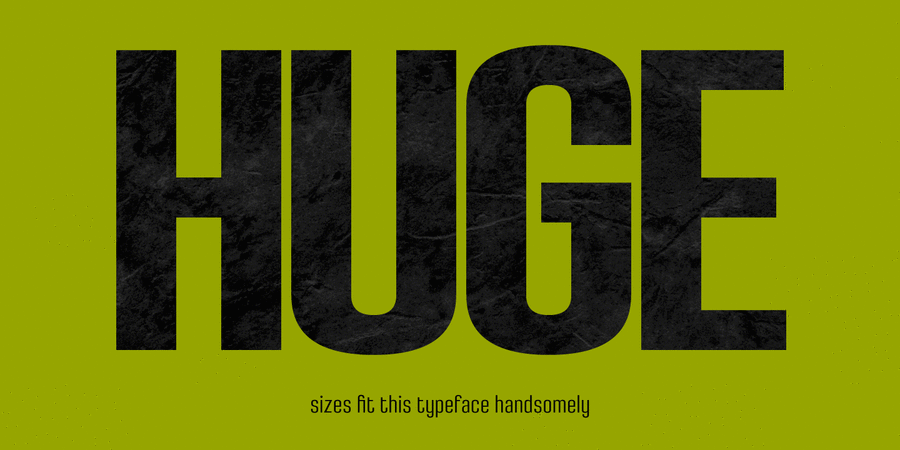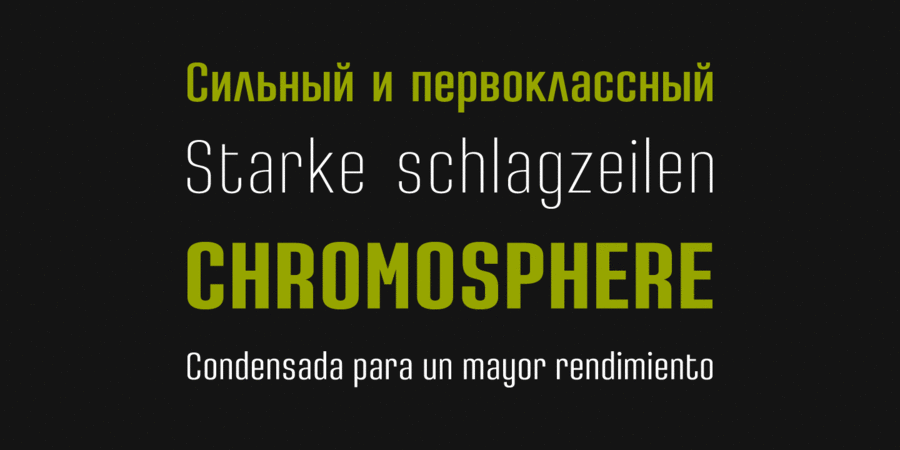
About DensaIt is a condensed sans serif typeface with some unconventional display endings. Its condensed design makes it very effective for space economizing and its display features make it a very interesting option for display usages such as logos, packaging and posters. It has been conceived to be most suitable for headlines and short length text blocks. Densa consists of 8 styles. Each containing small caps and glyph coverage for several languages on Latin and Cyrillic. The font family has been designed for Graviton Font Foundry by Pablo Balcells in 2020.